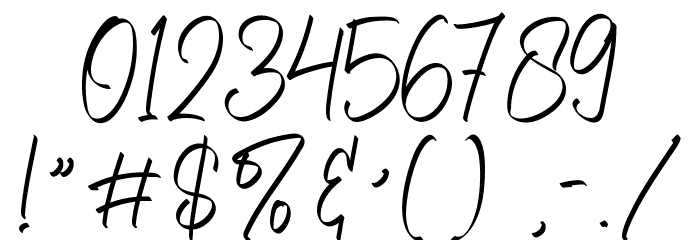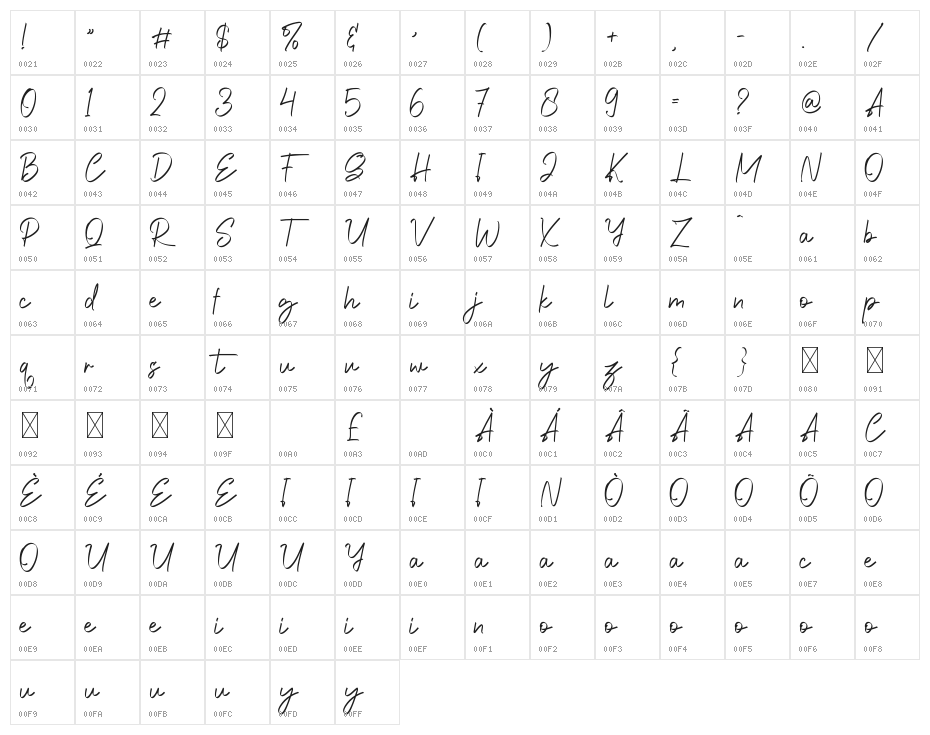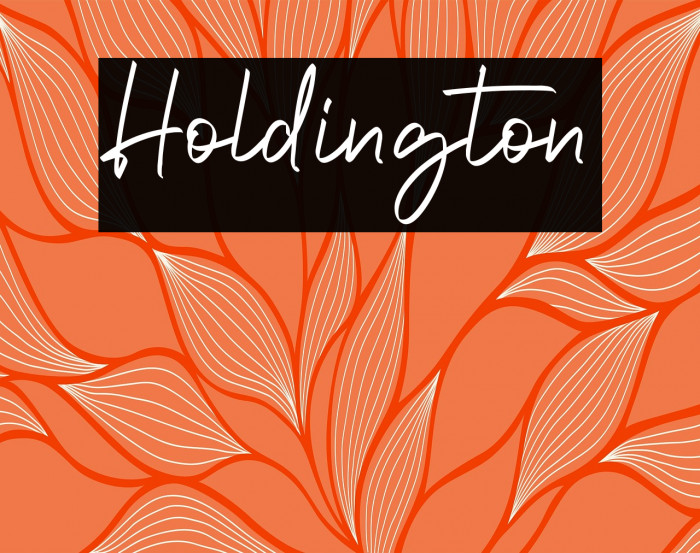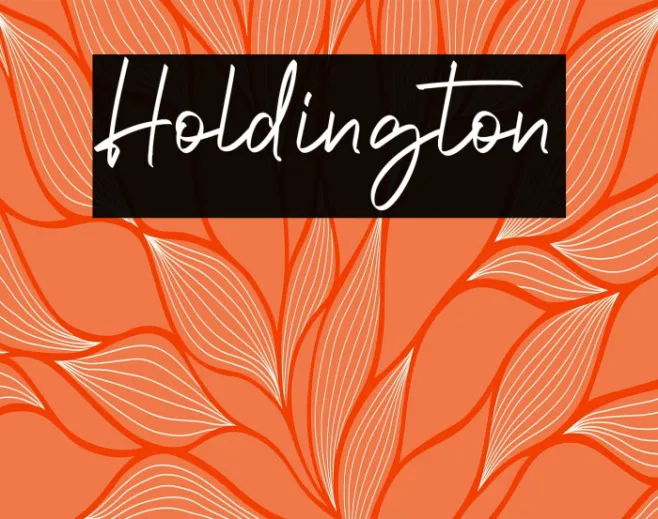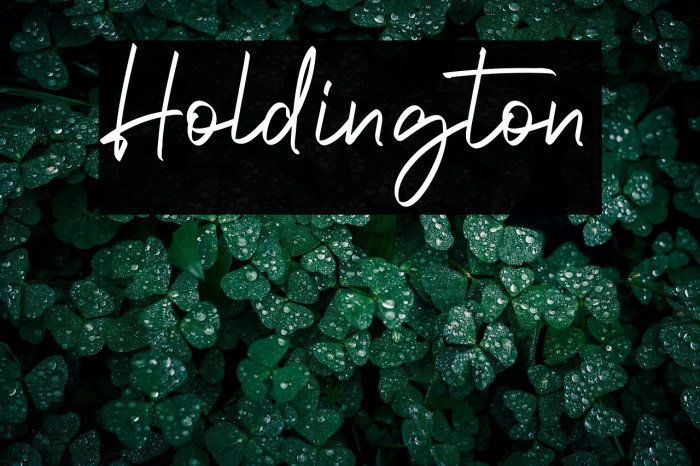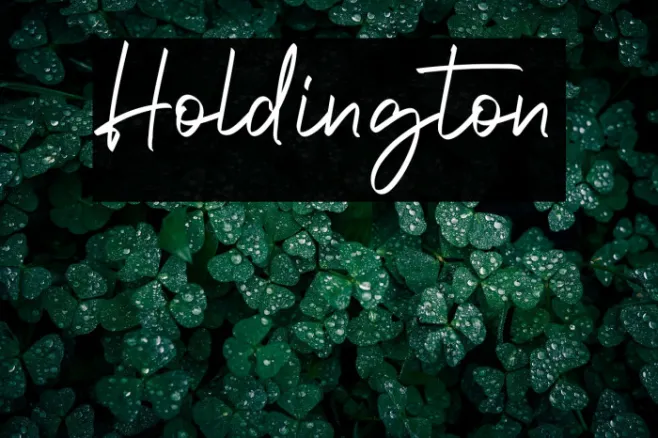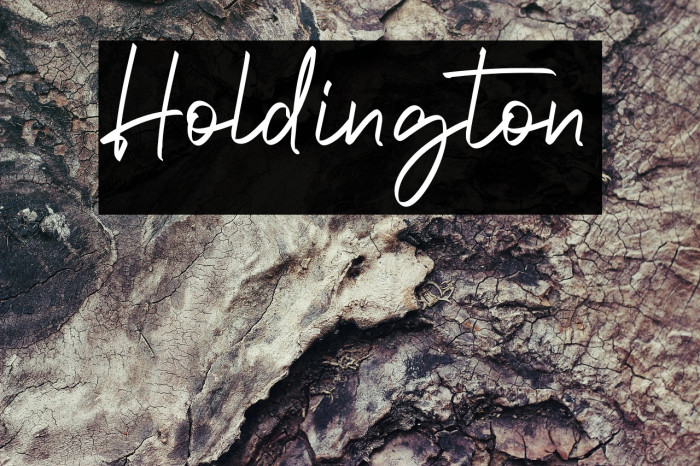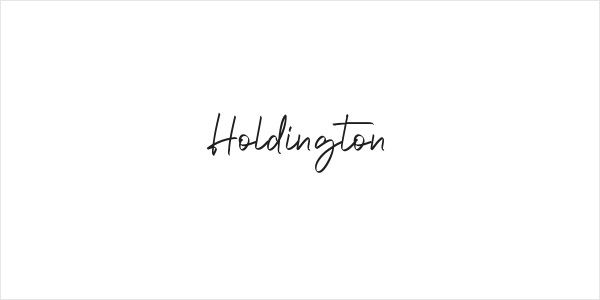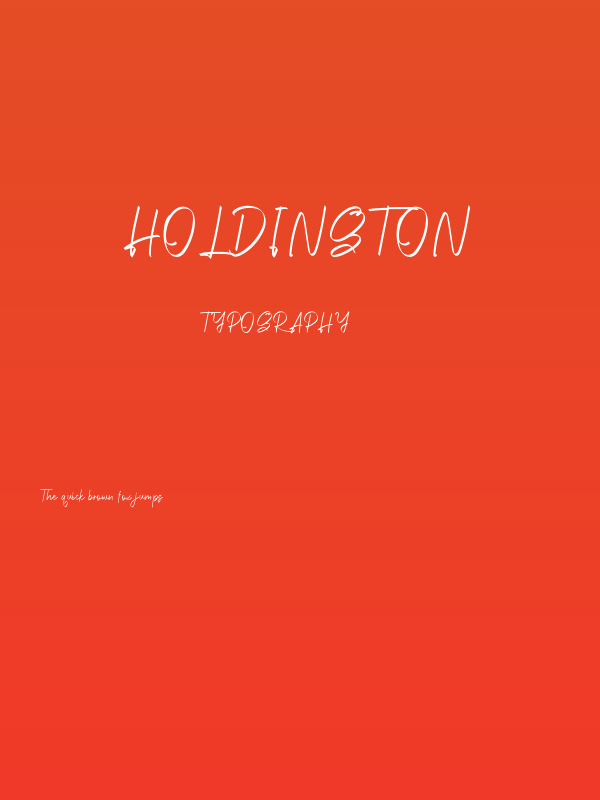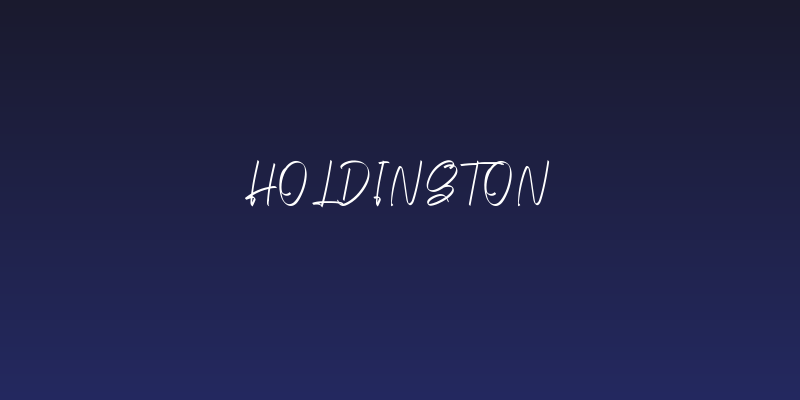
Holdington Font
Holdington Description
This font features a dynamic and fluid script style, characterized by its elegant and flowing letterforms. The uppercase letters exhibit a graceful yet bold presence, with sweeping curves and loops that add a sense of movement. The lowercase letters maintain a consistent rhythm, with smooth connections between each character, enhancing the overall cohesiveness. Numbers and special characters are crafted with the same attention to detail, ensuring they blend seamlessly with the alphabet. The font's hand-drawn appearance gives it a personal and approachable feel, making it suitable for projects that require a touch of sophistication and warmth.
Use CaseLogos, Invitations, Branding
Proposed ProjectsIdeal for wedding invitations, greeting cards, branding, and logo design.